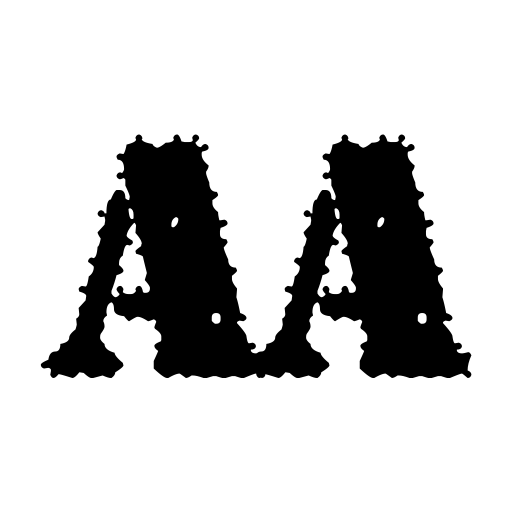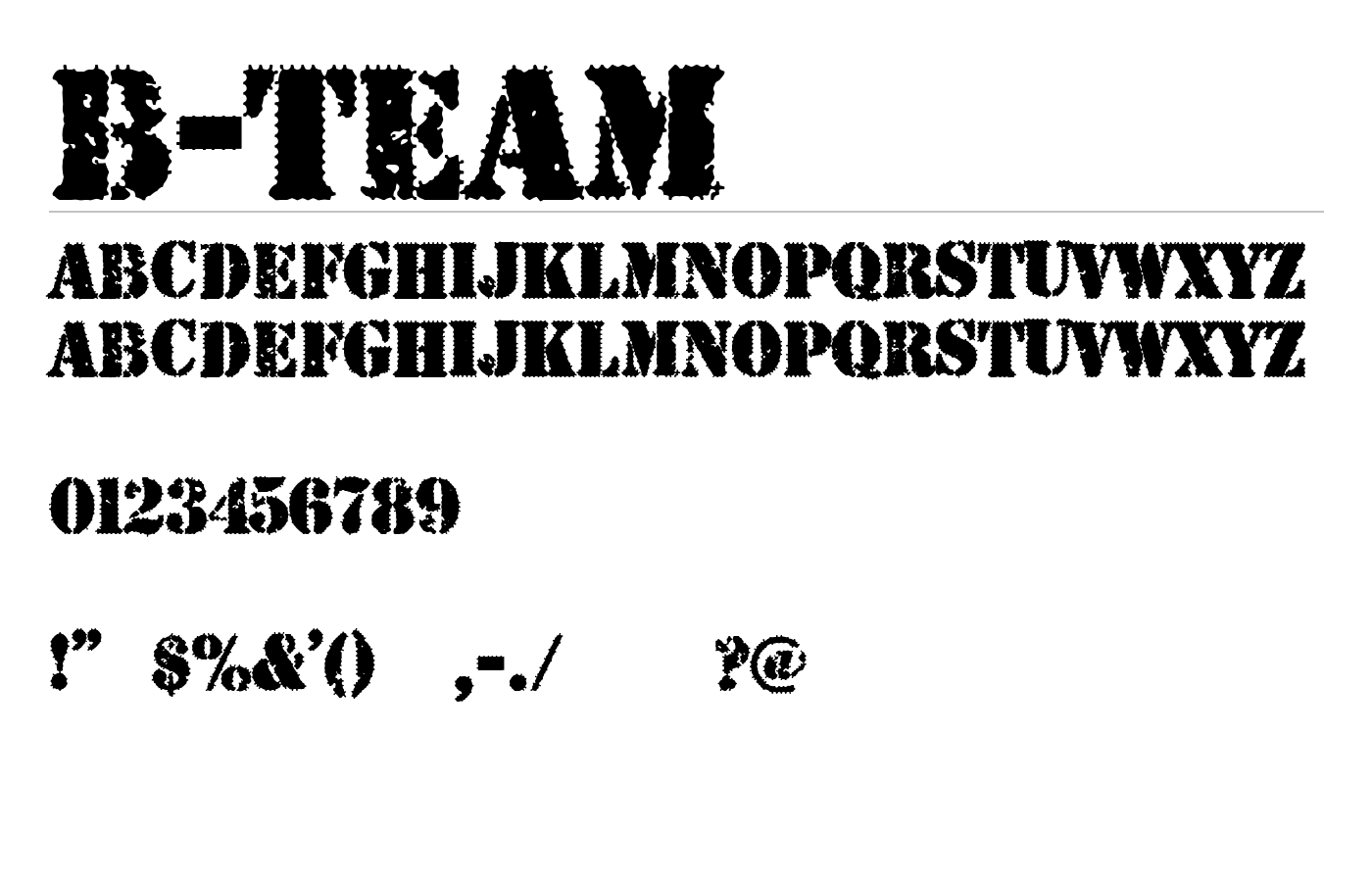
B-TEAM is a bold, decorative serif font with a rugged, distressed texture that gives it a strong, vintage, and industrial feel. Its heavy weight and rough edges make it ideal for creating eye-catching headlines, posters, and branding that need to convey toughness and character. This font works best in designs that want to evoke a gritty, bold atmosphere with a classic yet worn aesthetic.
B-TEAM Font
About B-TEAM Font